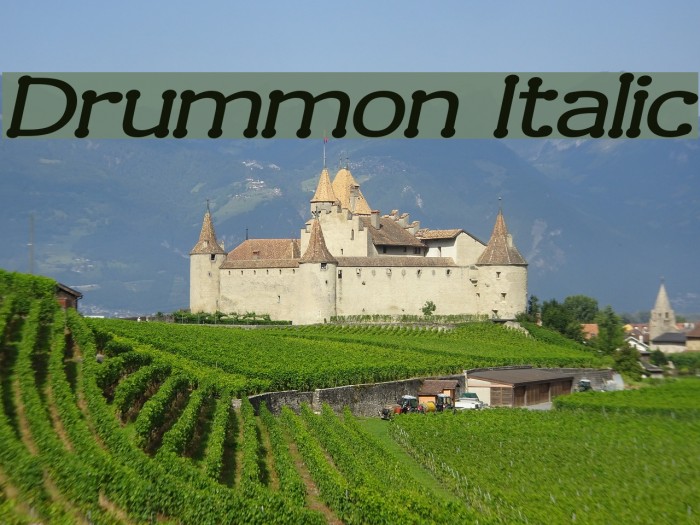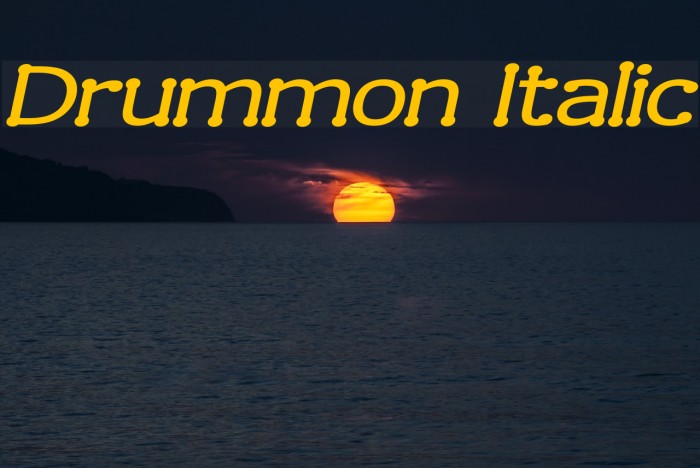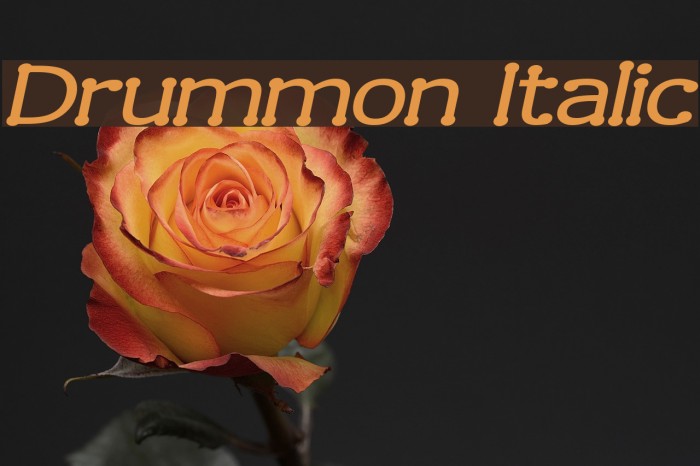
Drummon Italic Font
Drummon Italic Description
This font features a distinctive italic style with a playful and dynamic appearance. The characters are slightly slanted, giving a sense of motion and fluidity. Each letter is crafted with rounded edges and a consistent stroke width, contributing to a friendly and approachable look. The numerals and special characters maintain the same stylistic elements, ensuring uniformity across all glyphs. The font's unique character is further emphasized by the subtle curves and smooth transitions between strokes, making it suitable for creative and informal applications.
| Use Case | Headlines, Logos, Informal Text |
| Proposed Projects | Ideal for creative projects such as children's books, playful branding, and casual invitations. |